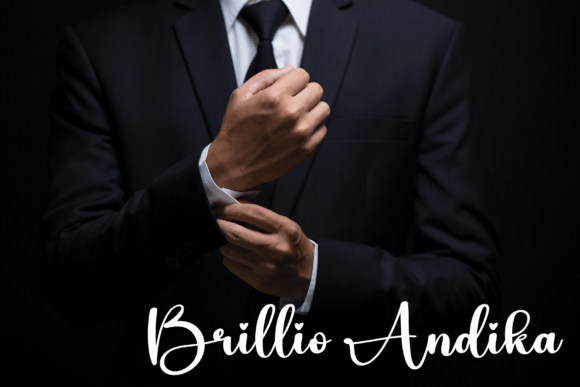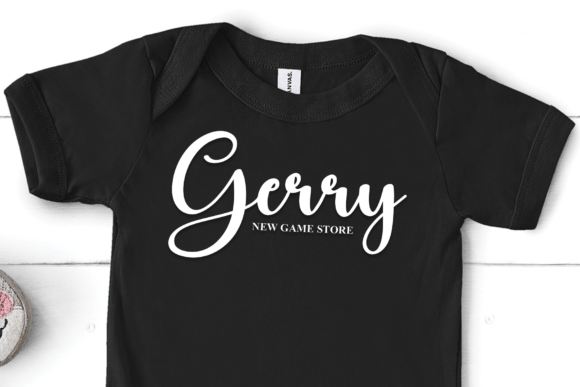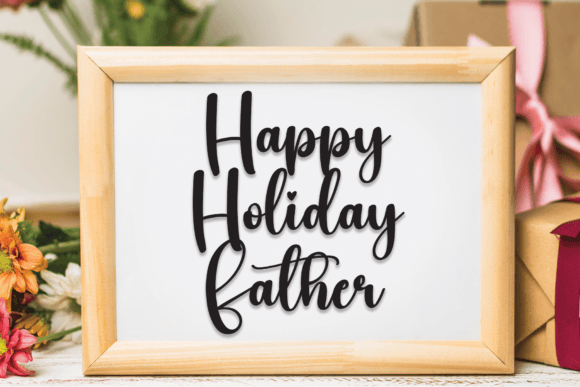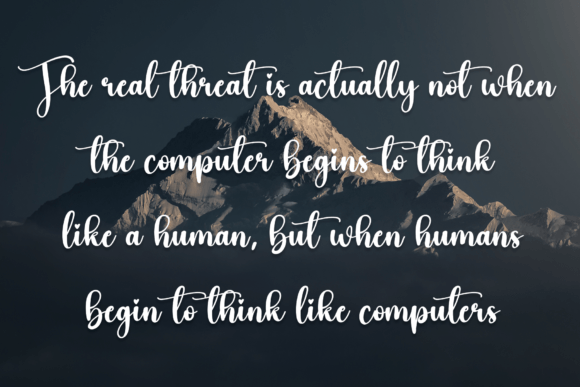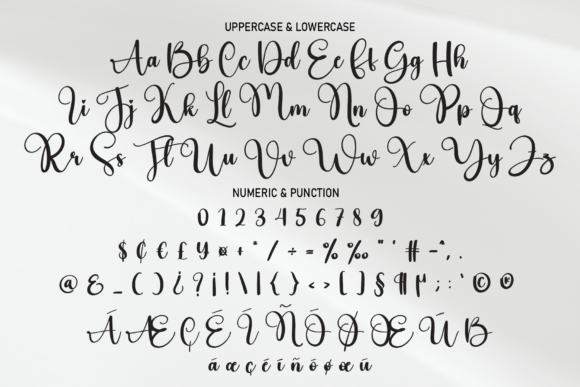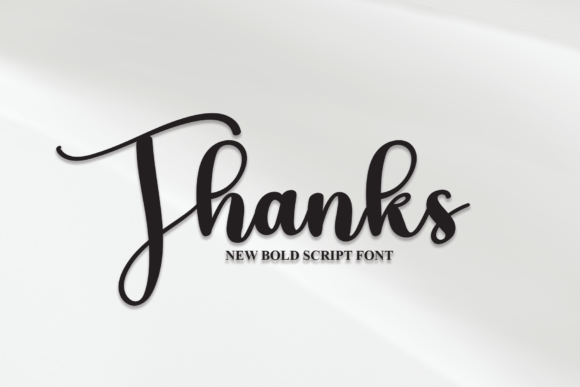
Hockey Font
About Hockey Font
Hockey’s latest lettering style embodies the dynamic and spirited essence of the sport, making it an ideal choice for a wide array of creative projects. From crafting compelling wall displays to setting the tone for special occasions with wedding invitations, these letters seamlessly adapt to various applications, including social media post logos, attention-grabbing advertisements, alluring product packaging, innovative product designs, energetic labels, and even enhancing the visual allure of photography through watermarks.
In the realm of visual aesthetics, Hockey’s letters bring a sense of action and excitement to wall displays. The bold and dynamic strokes create a visually engaging atmosphere, transforming spaces into vibrant hubs that capture the spirit of the game.
For couples seeking to infuse a touch of sports enthusiasm into their celebrations, incorporating Hockey’s latest style letters into wedding invitations adds an energetic and spirited flair. Whether it’s a script inspired by the intensity of on-ice action or a modern lettering style with sporty nuances, these choices provide a unique invitation that sets the stage for a memorable celebration.
In the digital realm, Hockey’s letters evoke the adrenaline of the game when used in social media post logos. They infuse a feeling of sports energy into branding efforts, allowing businesses or individuals to make a statement that resonates with the enthusiasm of hockey on various social media platforms.
Marketing endeavors find a unique ally in the versatility of Hockey’s letters. They add a touch of sports authenticity to advertisements, product packaging, and designs, creating an allure for sports enthusiasts. From labels that echo the excitement of the game to product designs that capture the essence of hockey action, these style letters are a valuable tool for marketers and designers alike.
Photographers can explore the dynamic side of creativity by incorporating Hockey’s letters as watermarks in their work. The bold and spirited nature of these letters adds a layer of intensity to photographs, creating a visually powerful experience for viewers.
Invitations crafted with Hockey’s letters carry an air of sports excitement. The ability to customize and infuse a handwritten taste ensures that each invitation is a unique reflection of the event’s theme and the host’s passion for the game.
In the realm of stationery, Hockey’s style letters add a touch of sports energy to various products. From personalized notecards that convey the intensity of the game to professional letterheads that exude a sports flair, these letters turn everyday stationery into works of art that resonate with the vigor of hockey.
In summary, Hockey’s latest style letters offer a creatively versatile tool for a wide range of projects. Whether it’s infusing sports excitement into wedding invitations or adding a dynamic authenticity to advertisements, these letters bring a touch of spirited creativity and a handwritten taste to any project that seeks to capture the dynamic essence of hockey.